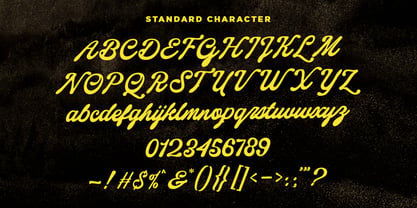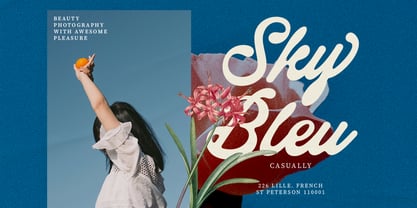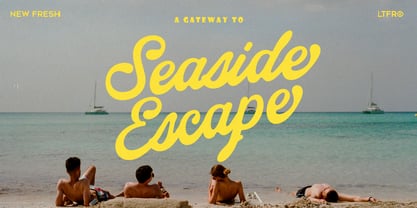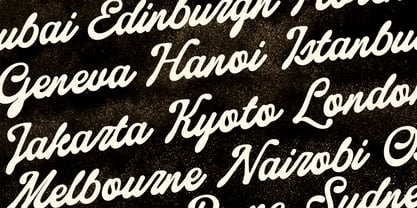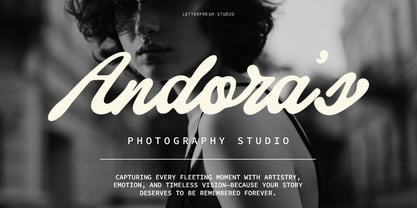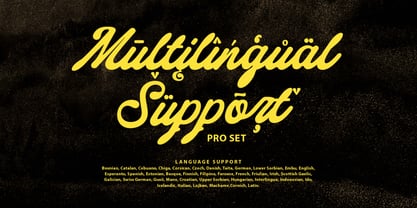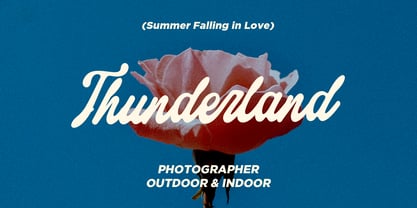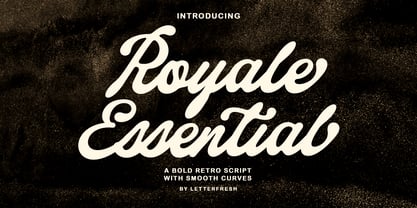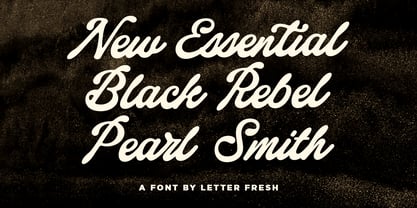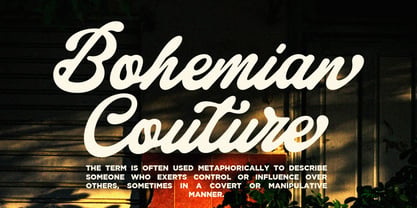
Royale Essential Script
The Royale Essential Script Font Family was designed by Rizki Andika and published by Letterfreshstudio. Royale Essential Script contains 1 styles. More about this family
Royale Essential Script Inspired by Modern Vintage & Retro styles and a combination with old American traditional style. Royale Essential Script allows you to create handwritten letters instantly and very practical. Ideal for logos, handwritten quotes, product packaging, headers, posters, merchandise, social media & greeting cards. Features Latin Basic A-Z and a-z Numbers Symbols Stylistic Collection Ligatures PUA Encoding There are additional ways to access the alternative, using Character Map (Windows), Nexus Font (Windows), Font Book (Mac) or software programs such as PopChar (for Windows and Mac). Thank you!